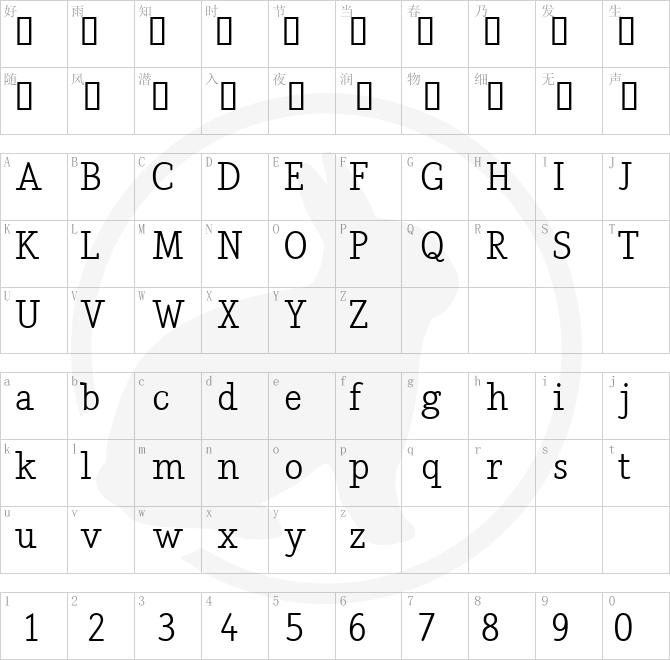
- Font Name:Nadia Serif
Nadia-Serif-Normal.ttf is a very beautiful artistic font, Nadia-Serif-Normal.ttf is widely used in the design and printing of various books and pictures,Nadia-Serif-Normal.ttf has a strong visual impact,Nadia-Serif-Normal.ttf is a commonly used font in newspapers, magazines and books, and is used in posters, e-commerce Poster design, store design, logo design, font design and other fields.Nadia-Serif-Normal.